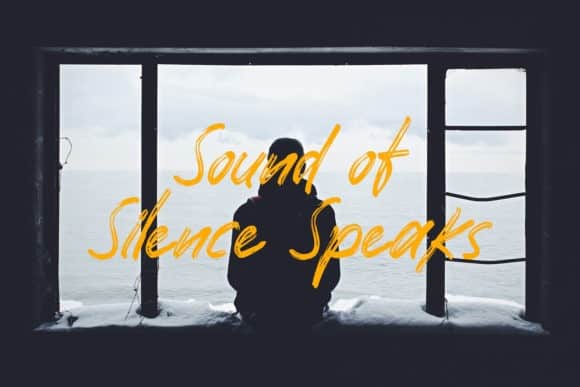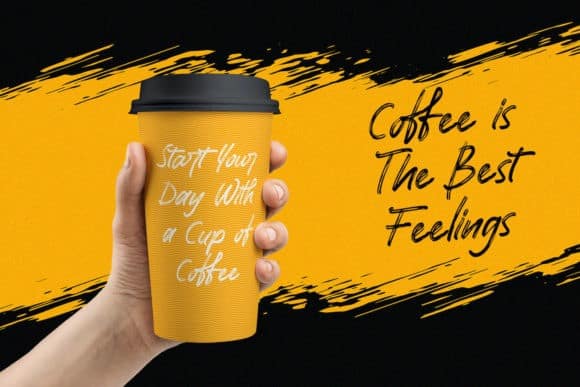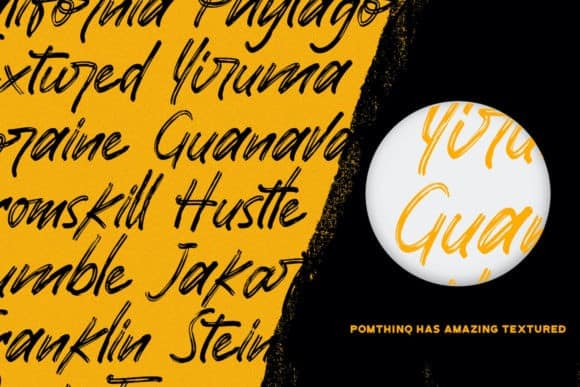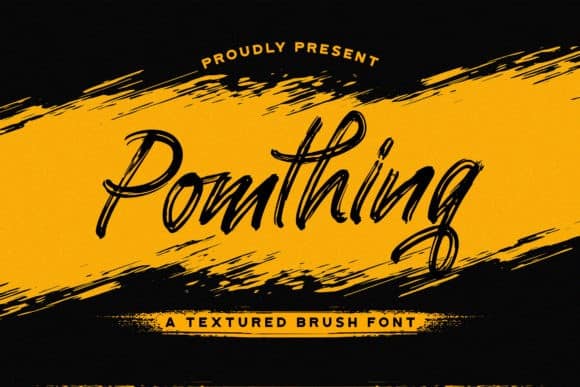
Pomthinq Brush Font
Pomthinq Brush Font is a beautiful brush script created with brush pen to give a great contrast between thick and thin curves. Drawn, Scanned & Vectorized from paper to screen. Fall in love with its incredibly versatile style and use it to create spectacular designs! This is suitable for quotes, invitations, stationery, wedding design, logos, watermarks on photography, signatures, branding, advertisement, album covers, business cards, clothing, magazines, posters, and more!